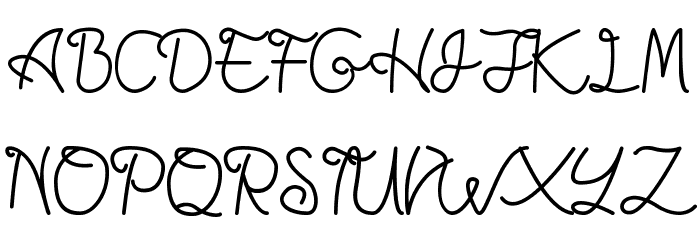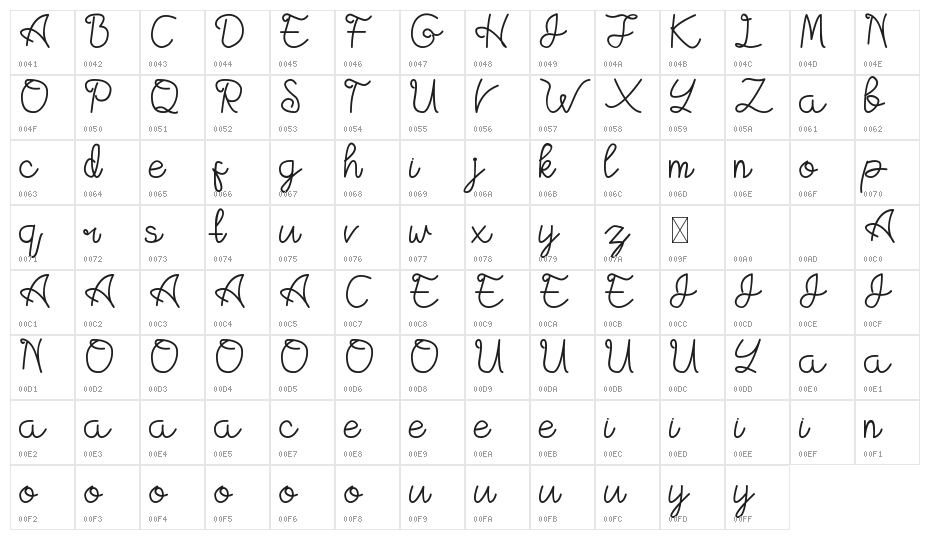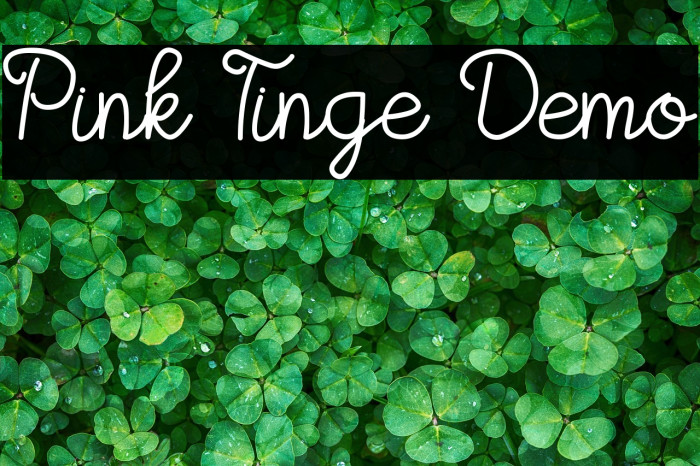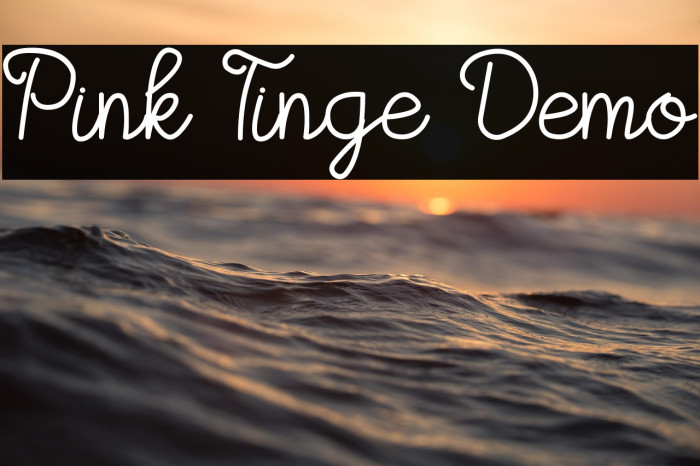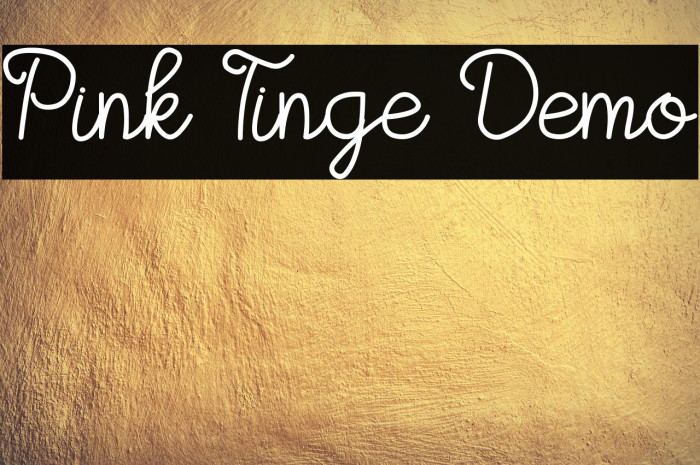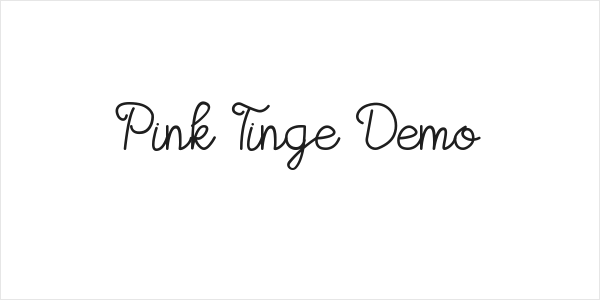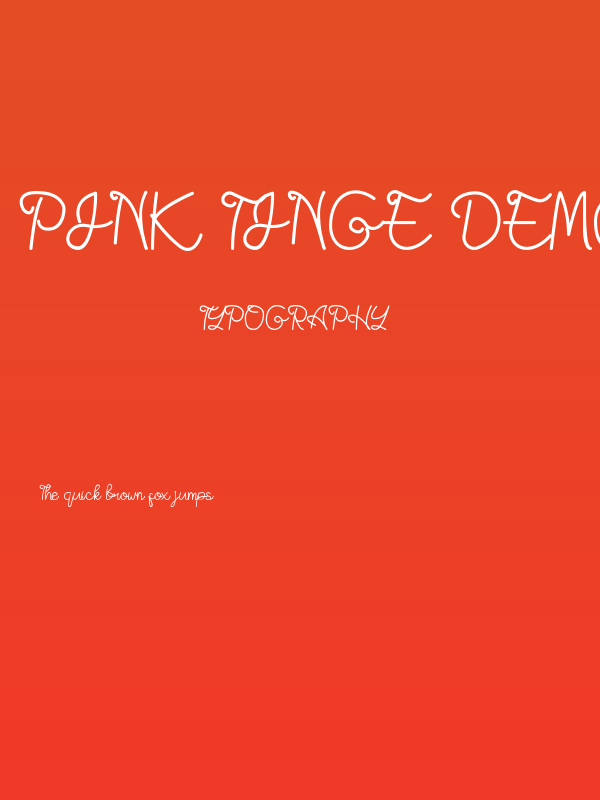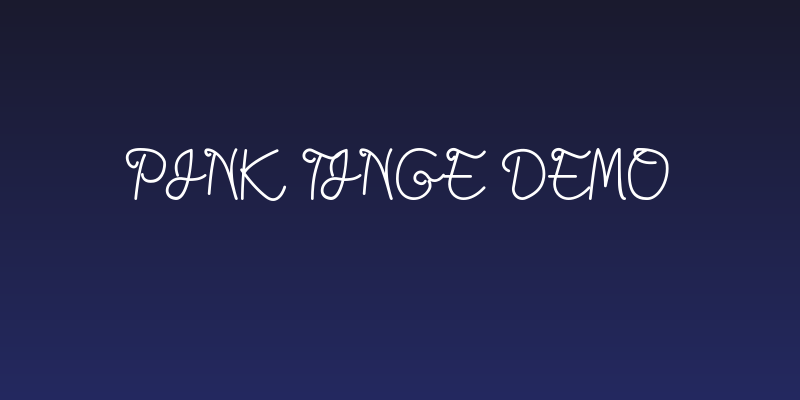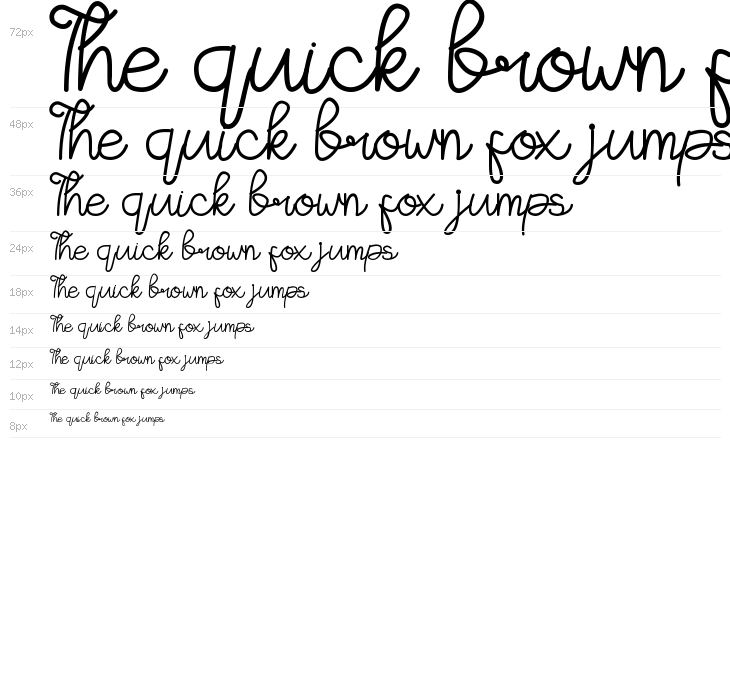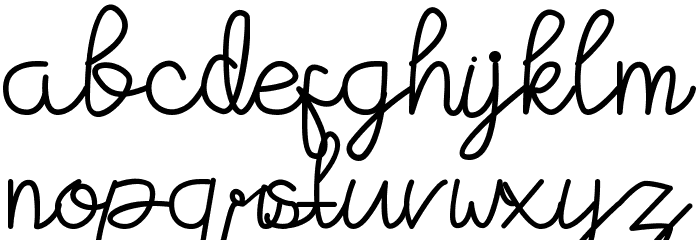
Pink Tinge Demo Font
Pink Tinge Demo Description
This font features a playful and elegant script style with a hand-drawn appearance. The uppercase letters are characterized by their looping strokes and decorative flourishes, giving them a whimsical yet sophisticated look. The lowercase letters maintain a consistent flow, with smooth curves and a slightly informal touch. The overall design is cohesive, with a balance between the boldness of the strokes and the delicacy of the loops. The numbers and special characters follow the same aesthetic, ensuring uniformity across all elements. This font is ideal for projects that require a personal and artistic touch, such as invitations, greeting cards, or branding materials.